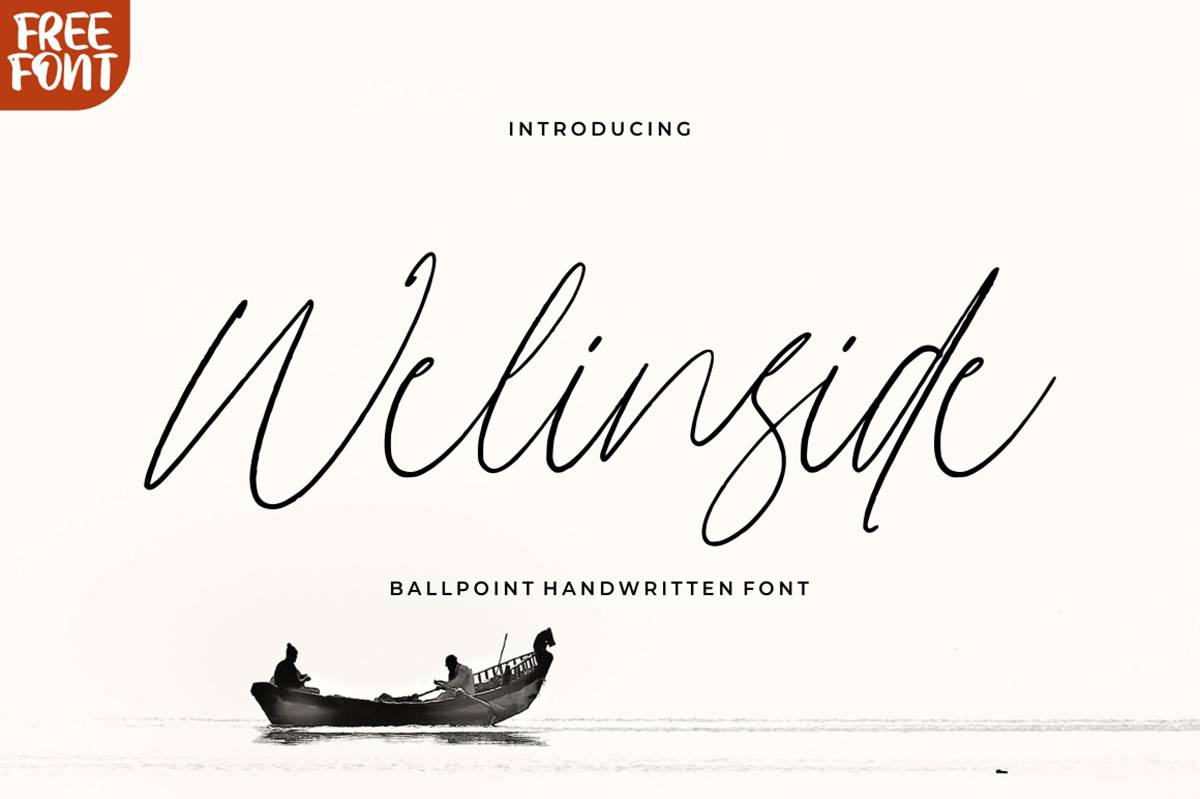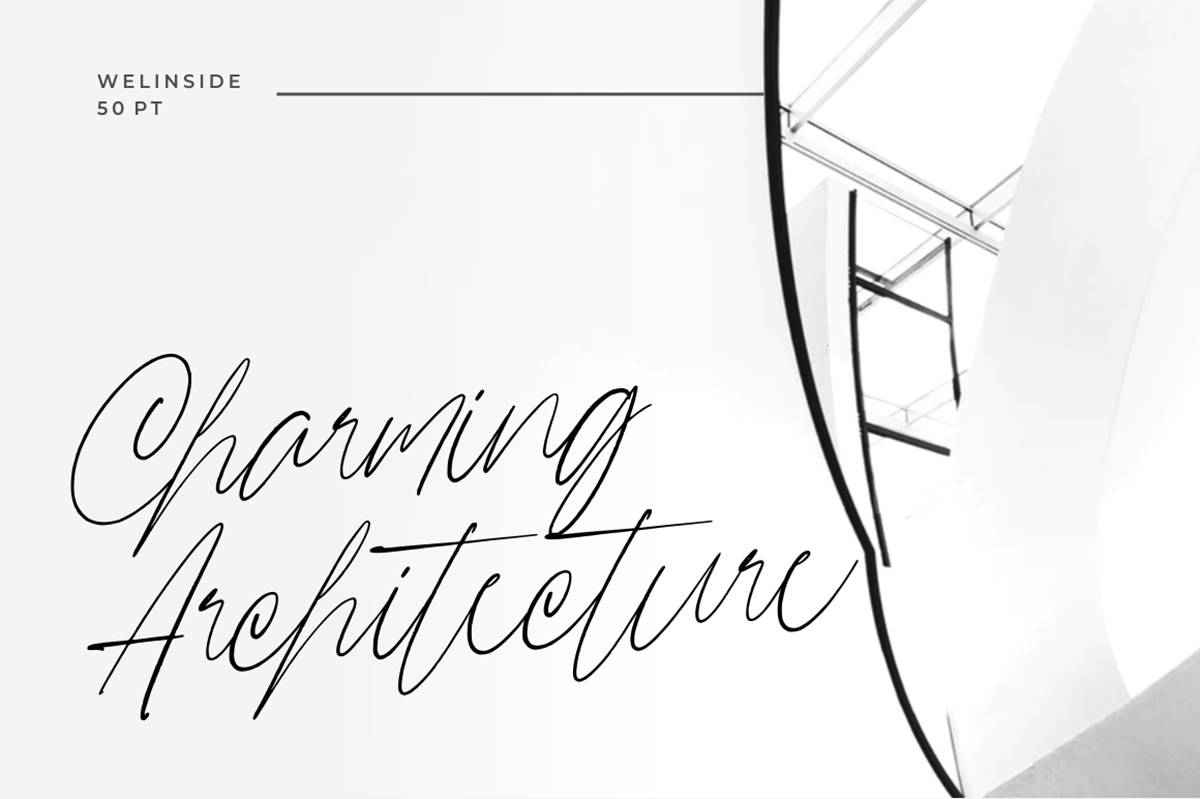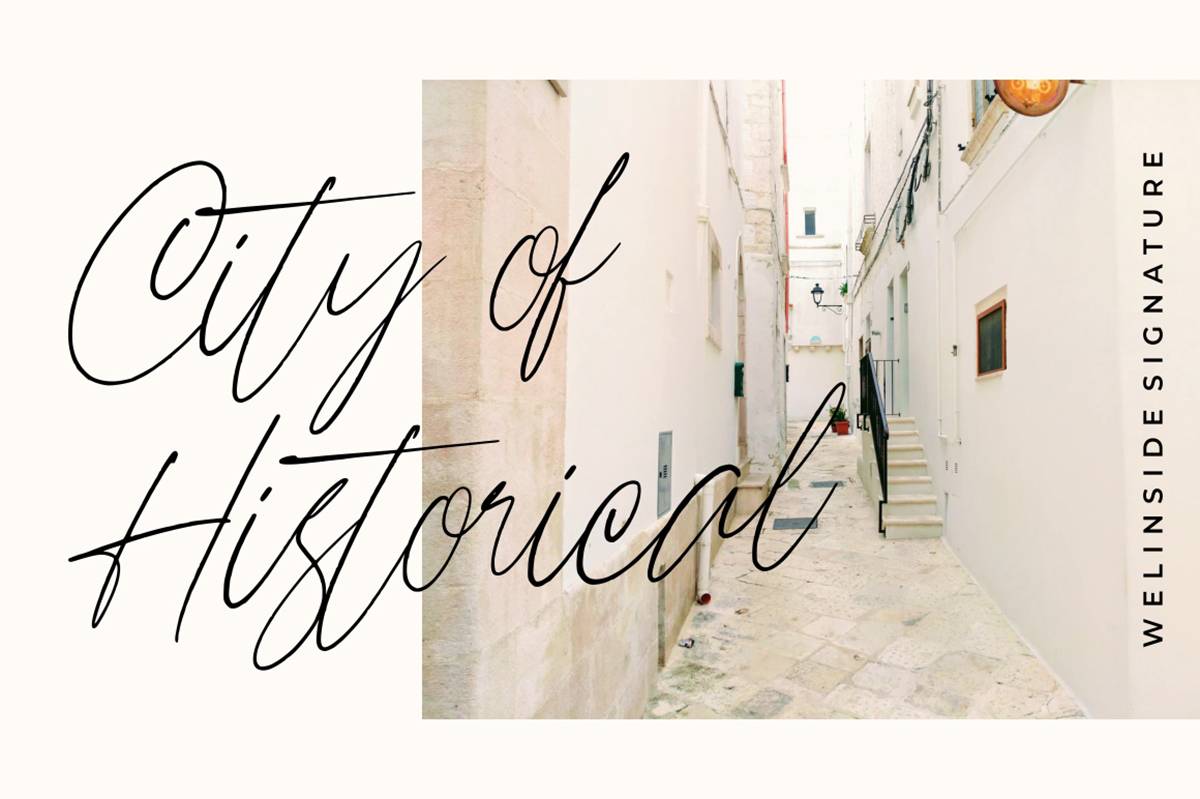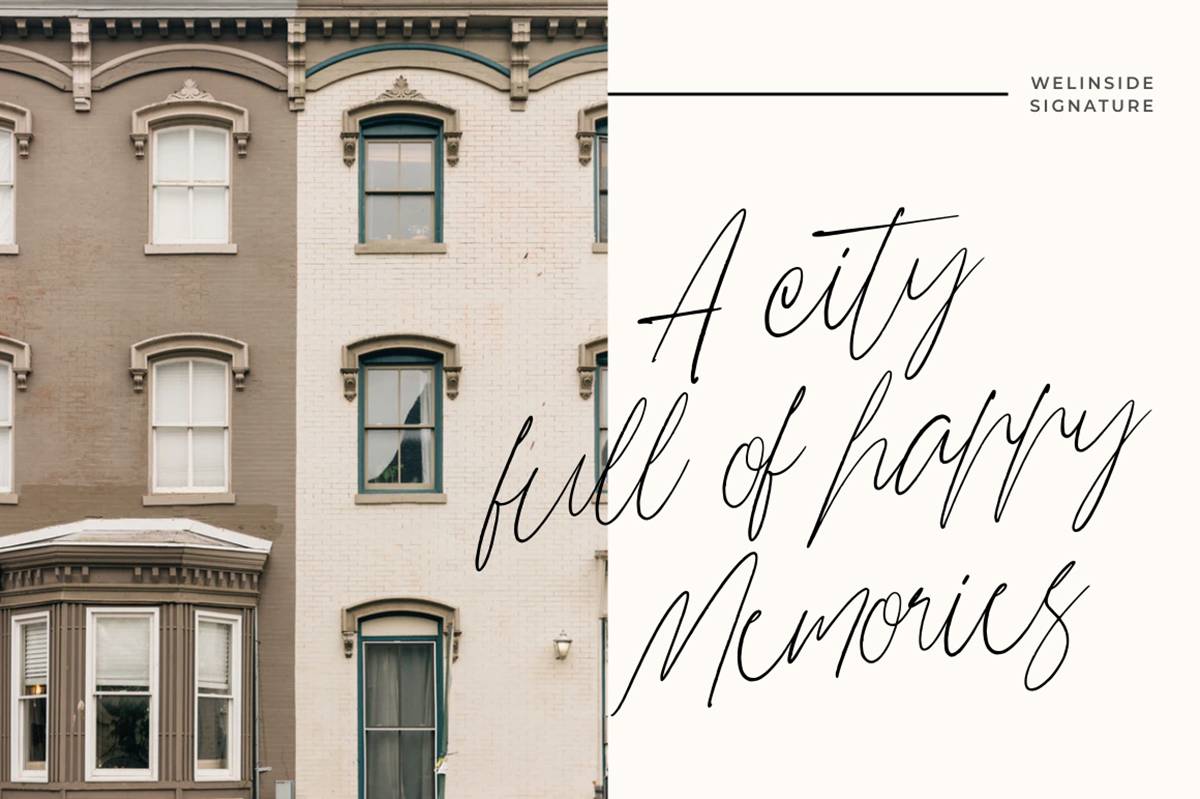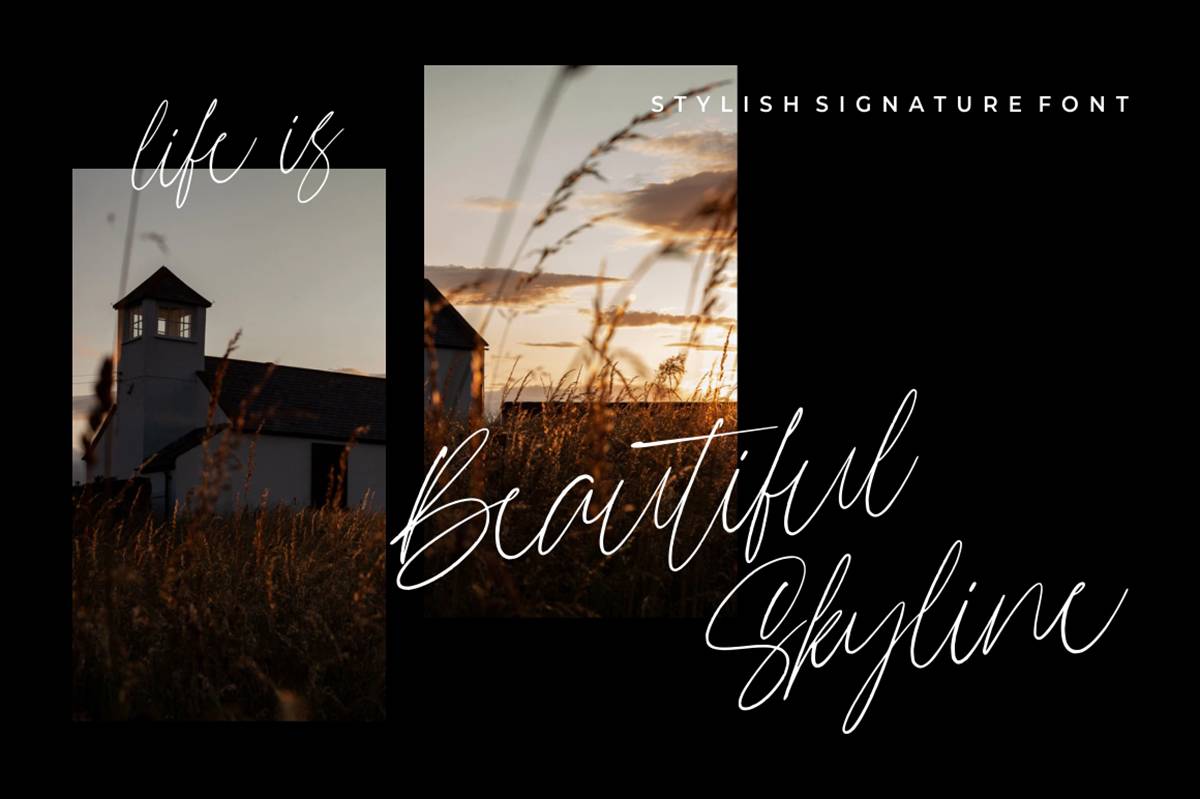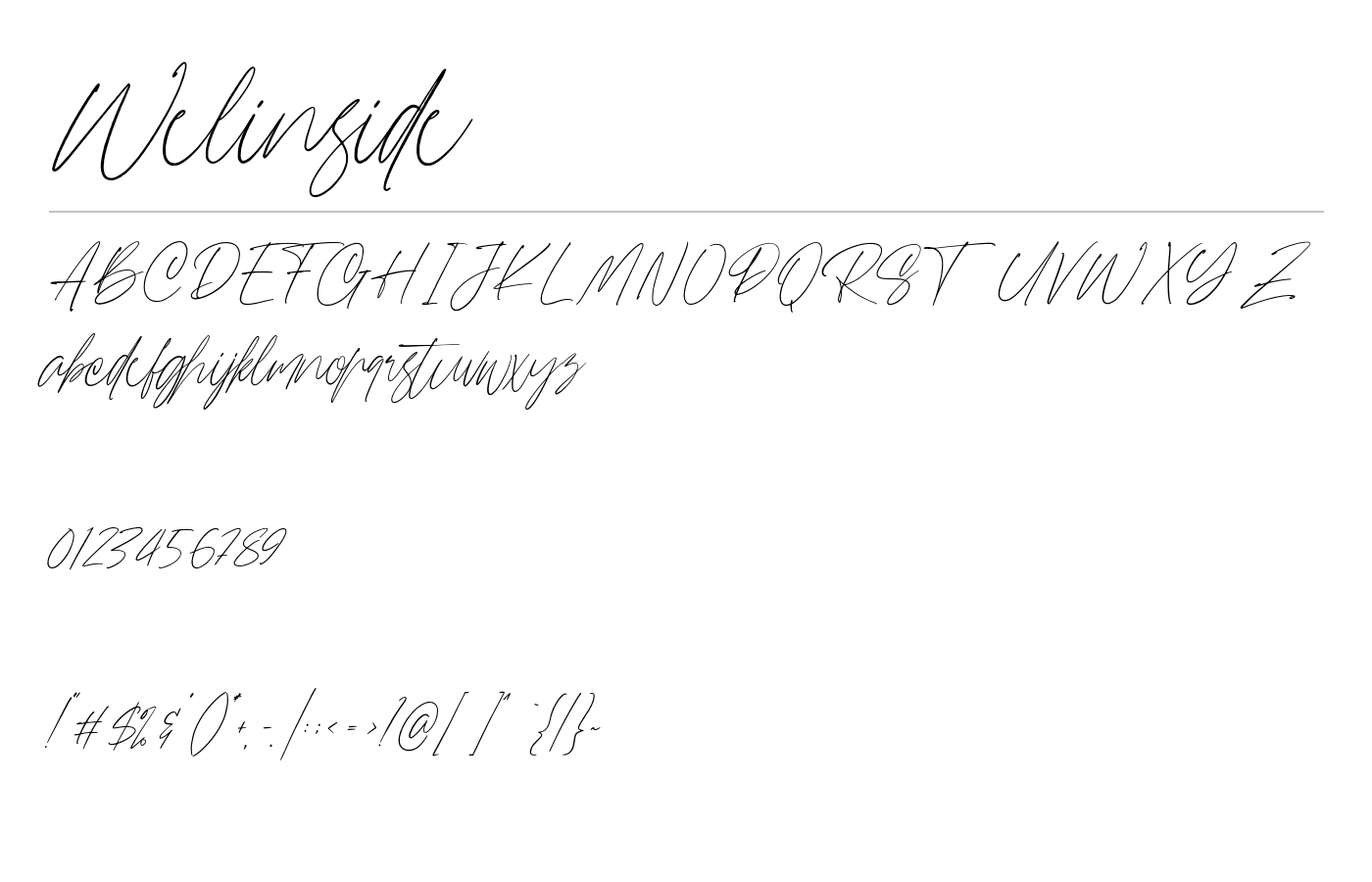
Welinside is a delicate, handwritten script font characterized by its thin, flowing strokes and high, elegant x-height. Its narrow, airy letterforms convey a personal, sophisticated touch, making it ideal for branding, invitations, and stylish editorial work that aims to evoke a refined yet approachable mood. This font’s light and graceful style works best in contexts where a subtle, classy hand-crafted feel is desired.
Welinside Font
About Welinside Font
| Font family | Welinside Font |
| Release date | 2019-12-10 |
| Designer | Good Java Studio |